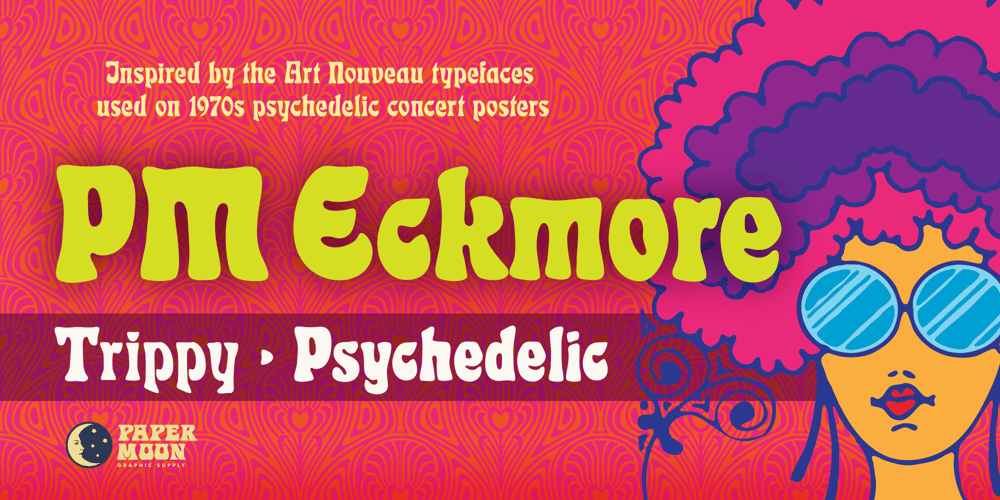
PM Eckmore Font Family was designed by Scott Banks and published by Paper Moon Type & Graphic Supply. PM Eckmore contains 2 styles and family package options. Eckmore is a modern psychedelic variation of the Art Nouveau font Eckmann. It is inspired by 1970s concert posters of The Filmore in the San Francisco Bay Area. Its casual vibe is perfect for everything from retro fashion marketing to toy packaging.